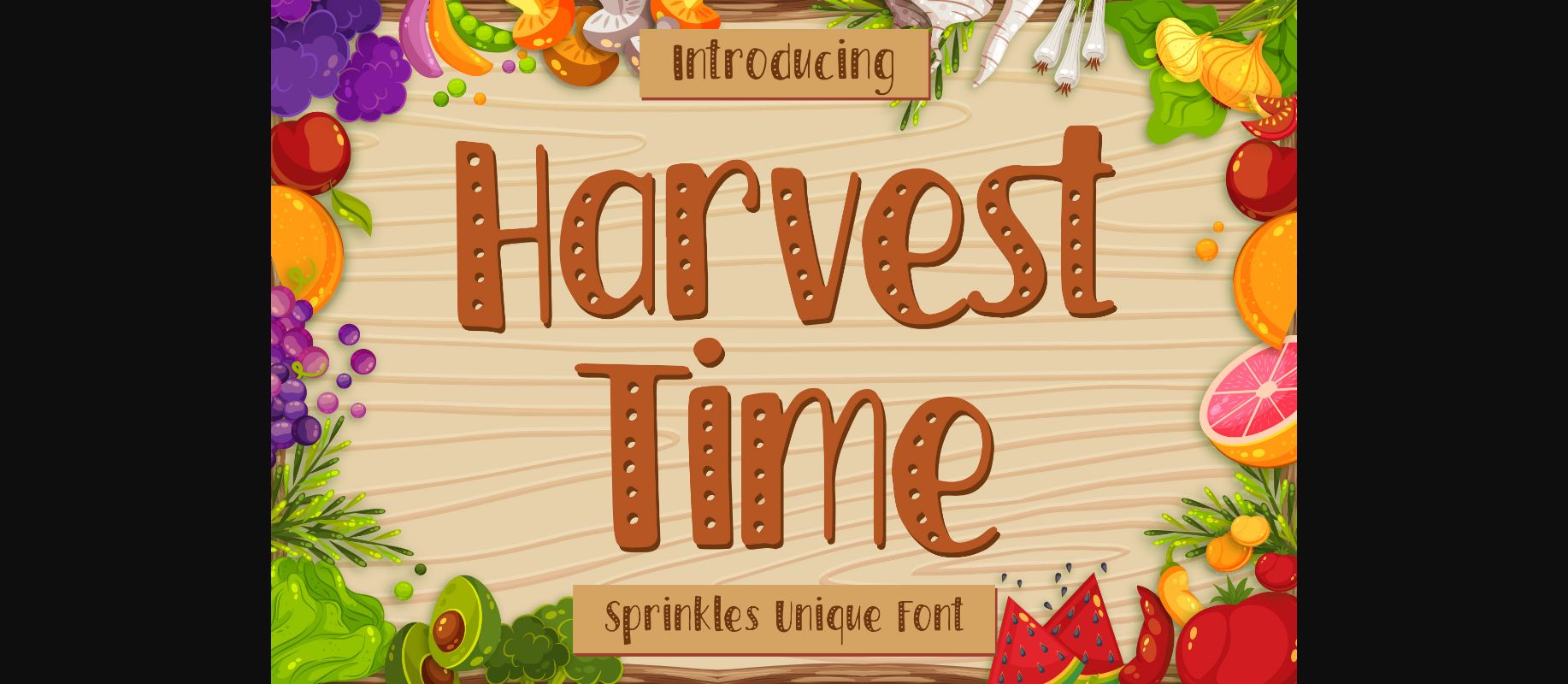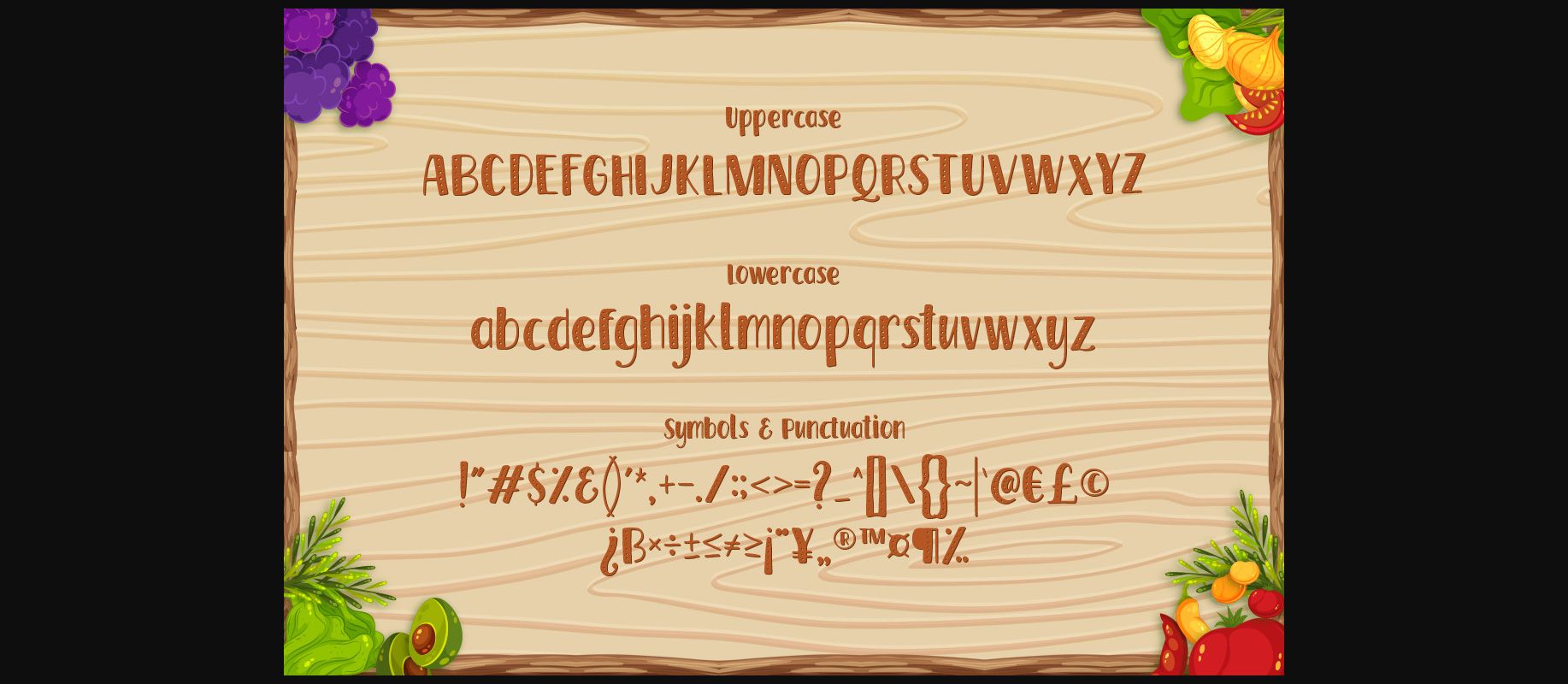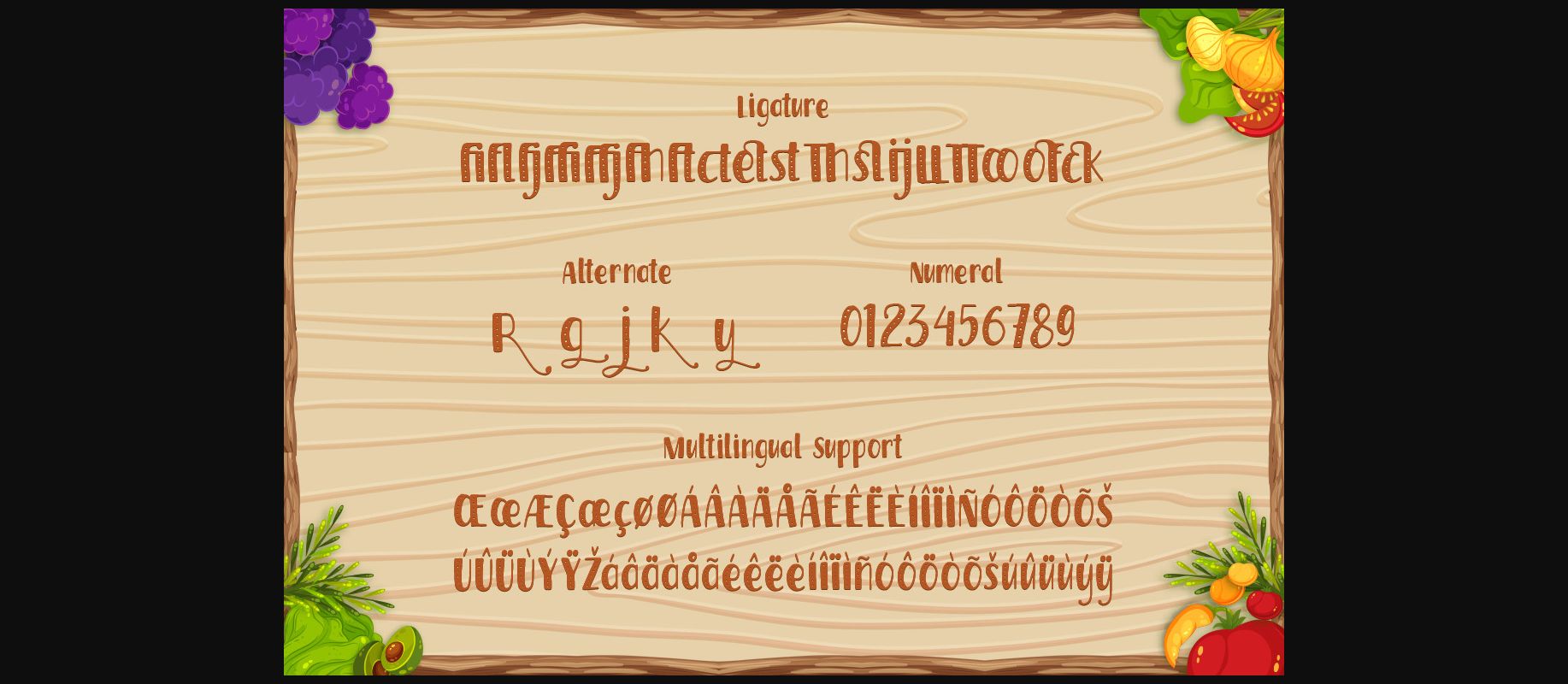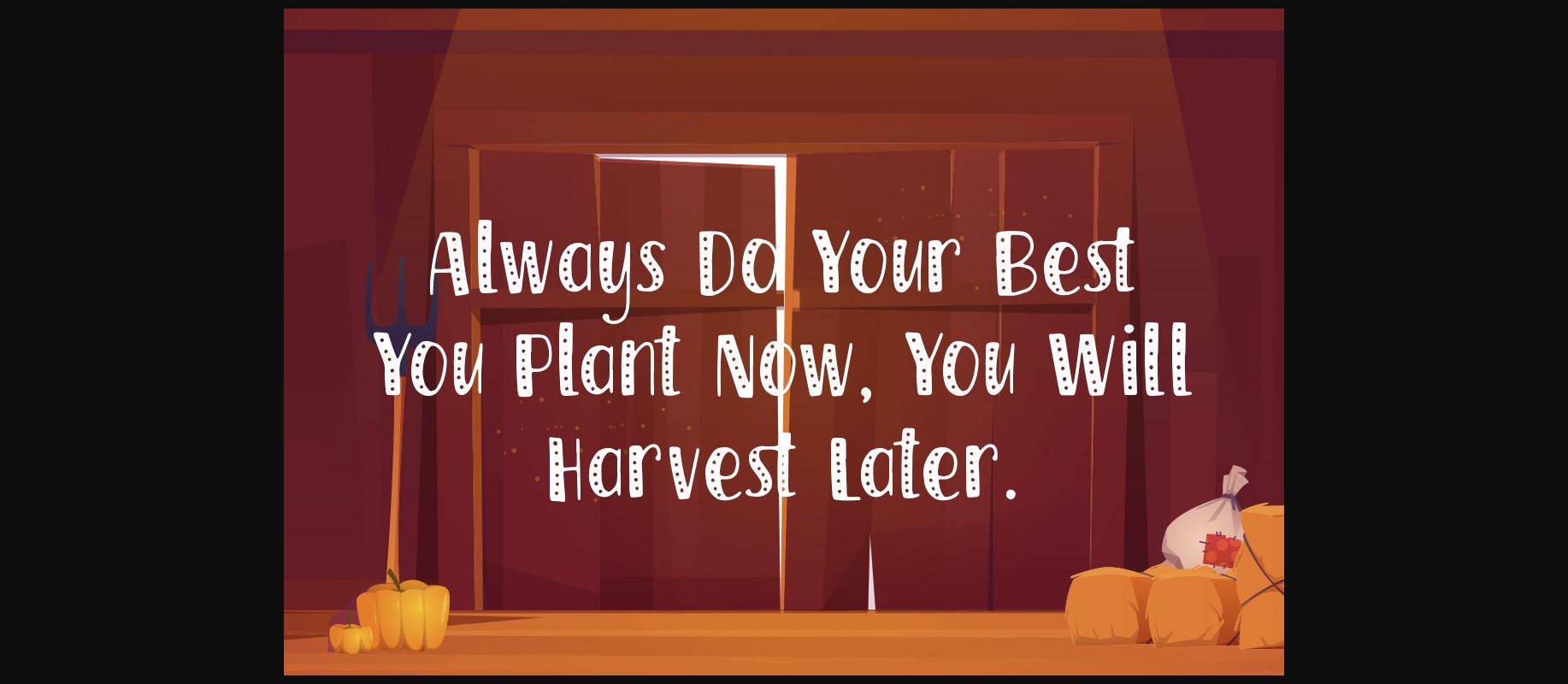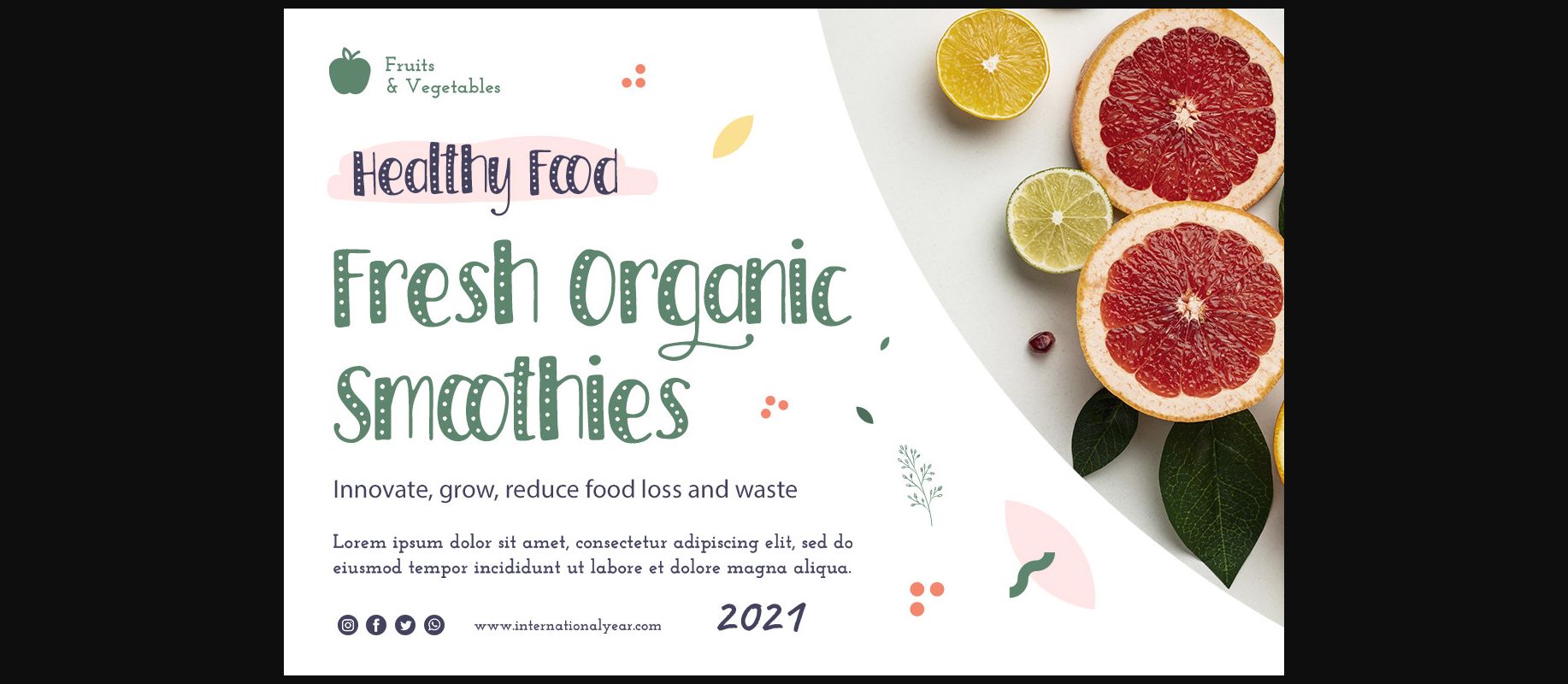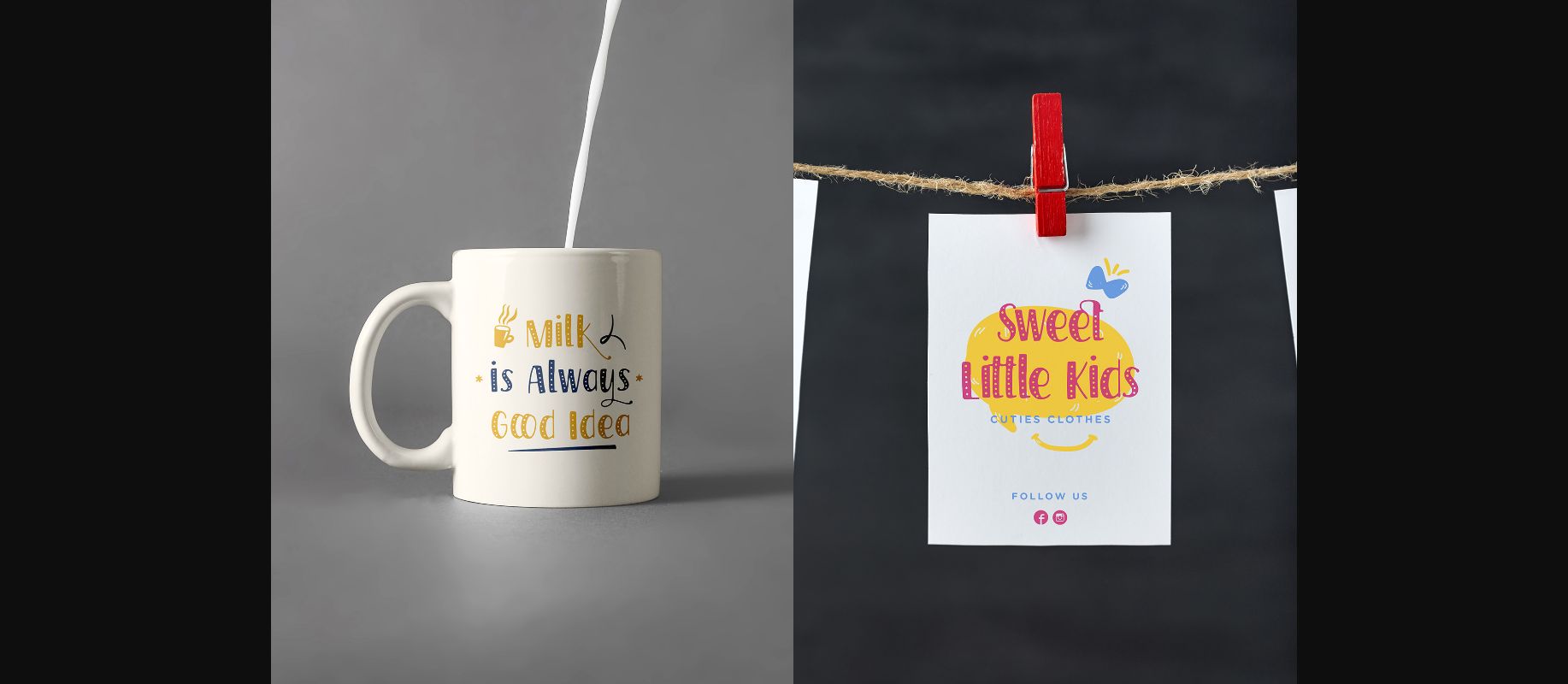
Harvest Time Font
About Harvest Time Font
Harvest Time is a playful and creative decorative font. It has friendly characters and a neat, crafty style that can elevate the look of any creation!